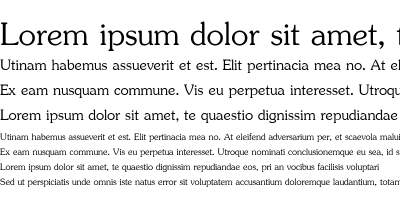
SPOT - Display / Headline Typeface
This striking display typeface is perfect for magazine headlines, advertising campaigns, poster designs, brand logos, editorial layouts, website headers, packaging graphics, and impactful marketing materials. SPOT - Display / Headline Typeface delivers commanding visual presence in applications where bold statement-making and immediate attention-grabbing are crucial for effective communication and memorable brand impact.
What makes SPOT - Display / Headline Typeface so exciting is its exceptional ability to command attention while maintaining sophisticated design integrity. The font features bold, distinctive letterforms with carefully balanced proportions that ensure maximum impact without sacrificing readability. Each character has been meticulously crafted to perform exceptionally at large sizes while creating powerful visual hierarchy in editorial and advertising contexts. The typeface's commanding presence makes it perfect for brands that need to cut through visual noise and establish immediate recognition in competitive markets.
The SPOT - Display / Headline Typeface includes essential weight variations: Regular, Bold, Light, and Extended versions. This powerful collection provides designers with comprehensive tools to create dynamic layouts and establish strong typographic focal points across diverse display applications. Each weight maintains the font's core impact characteristics while offering different emphasis levels for various headline and display design requirements.
Whether you're developing attention-grabbing advertising campaigns, creating editorial magazine layouts, or designing impactful brand communications, SPOT - Display / Headline Typeface Free Download delivers the visual power that captures audience attention and drives engagement. Its commanding character makes it particularly suitable for media companies, advertising agencies, fashion brands, and entertainment businesses. The font's exceptional performance ensures maximum impact in both large-scale outdoor displays and digital headline applications, while its versatile design adapts perfectly to contemporary and classic design approaches.
This powerful display typeface represents the ultimate solution for designers who understand the critical importance of commanding headlines in effective visual communication strategies.